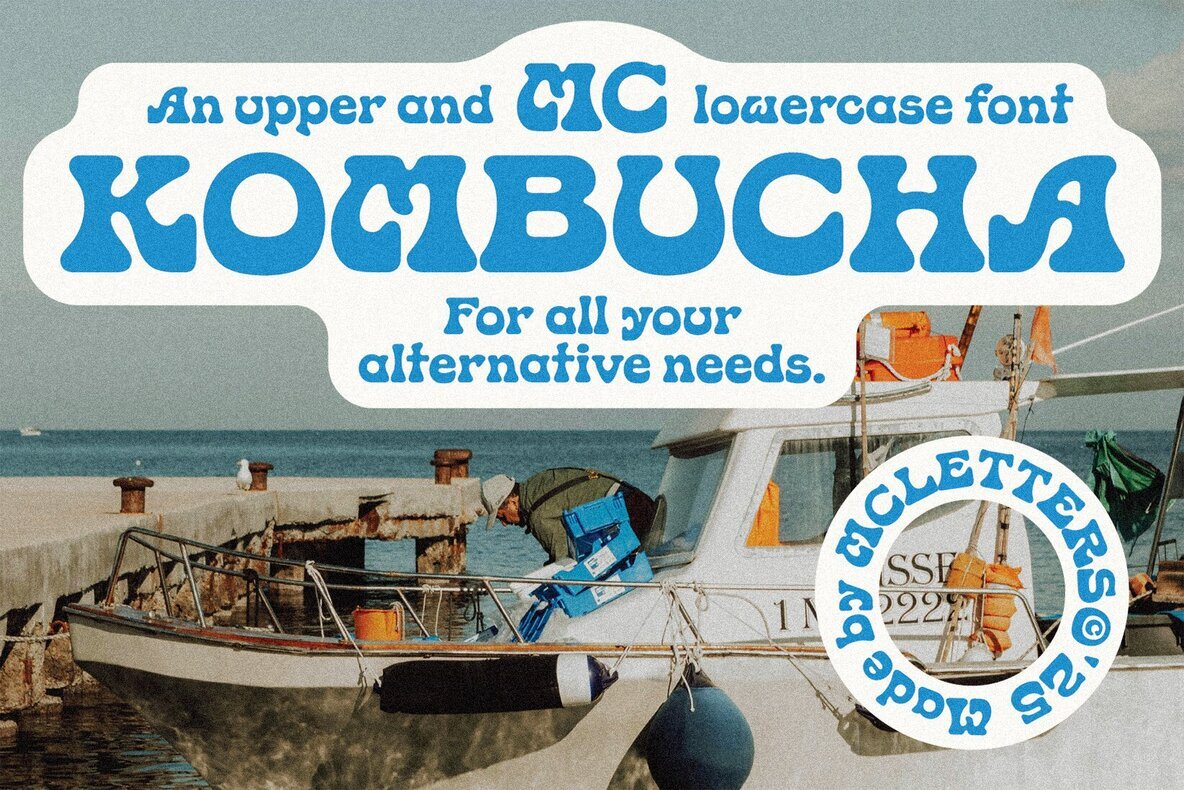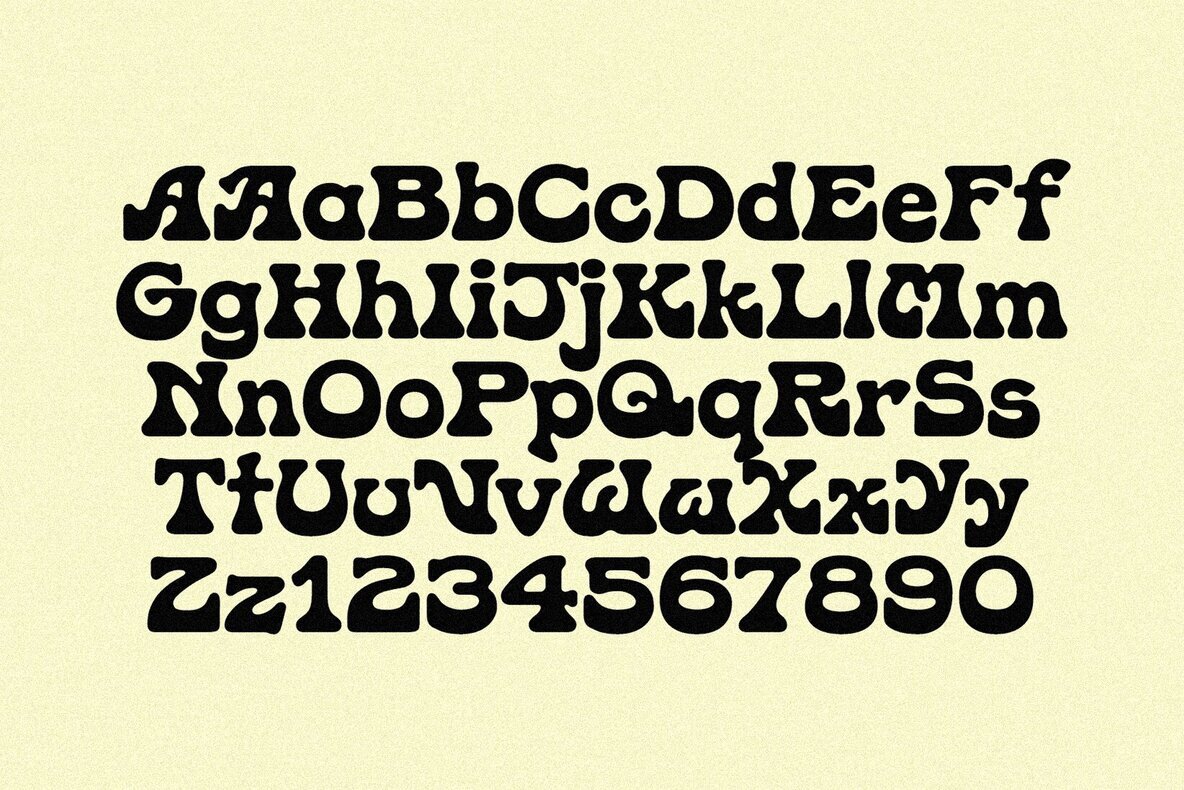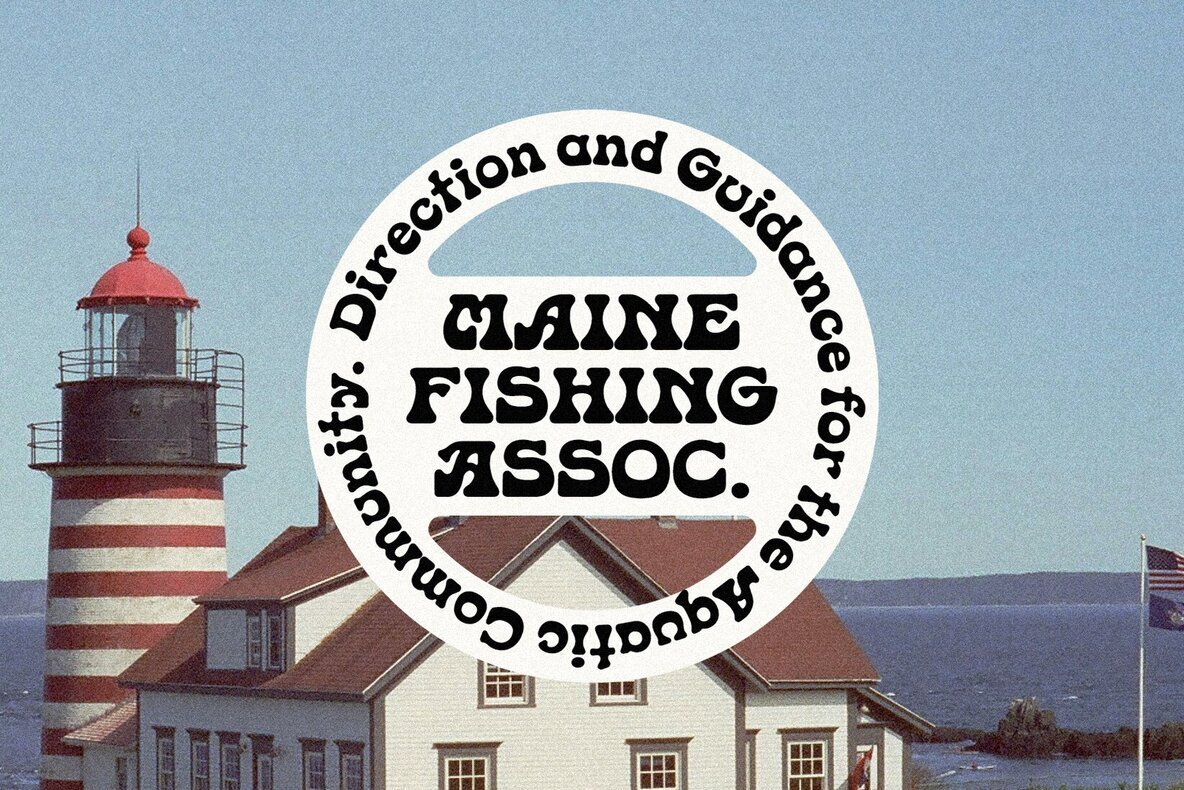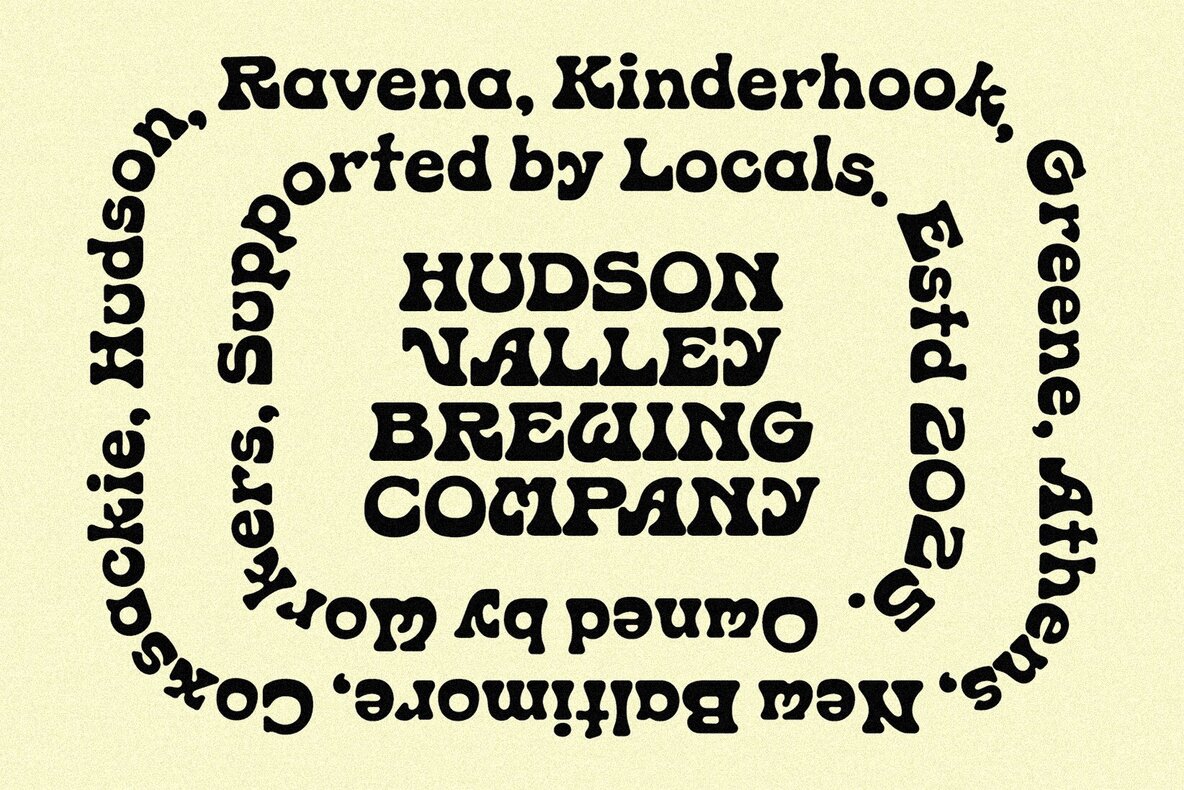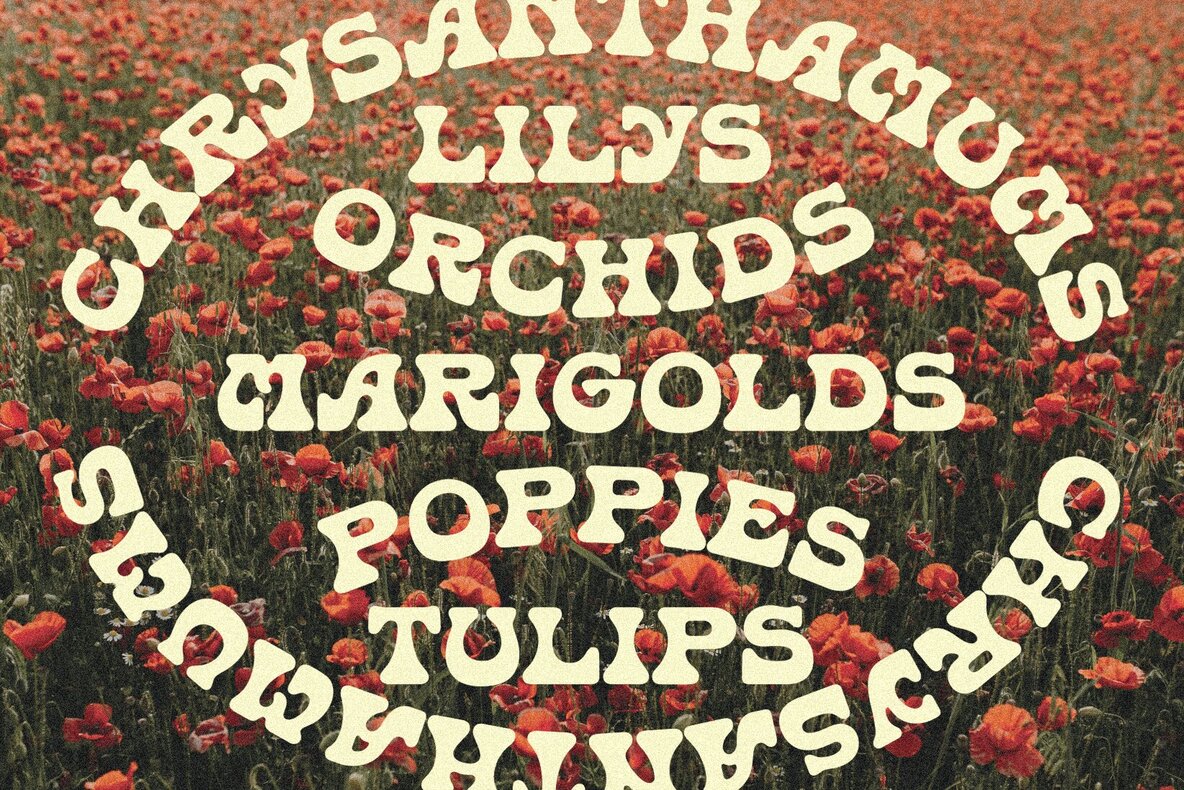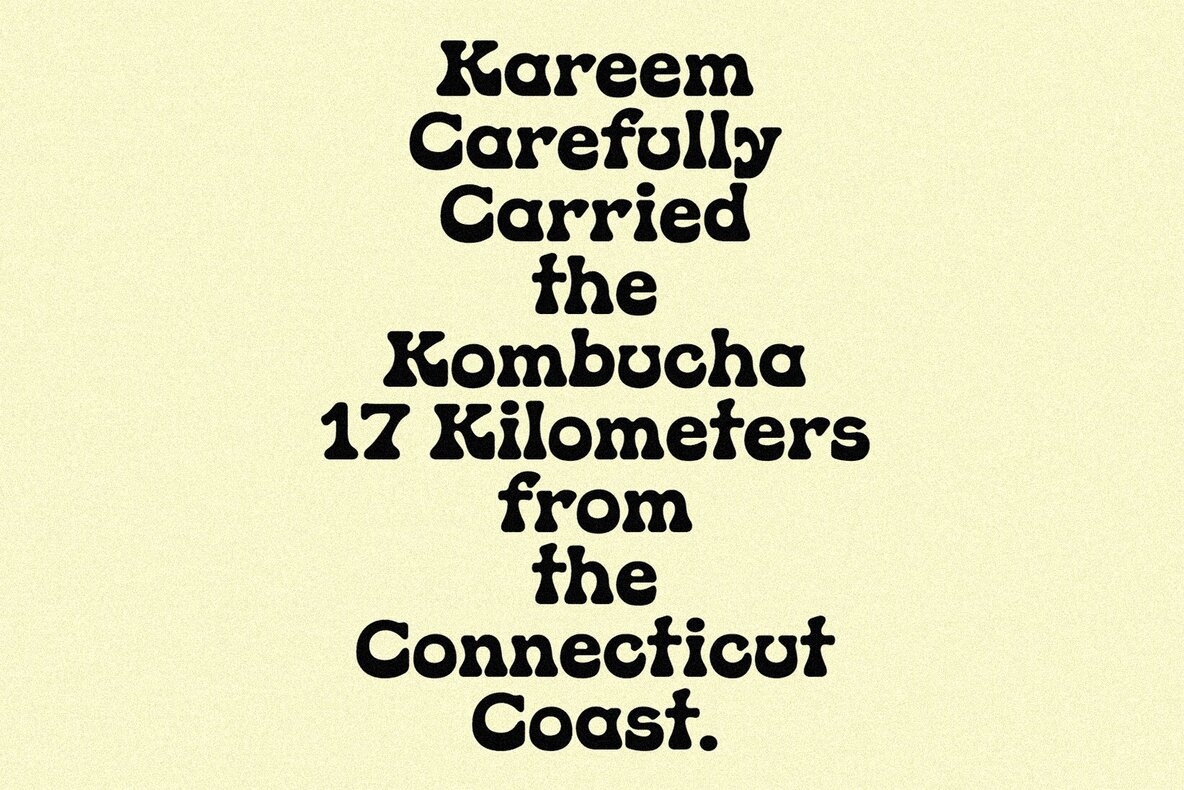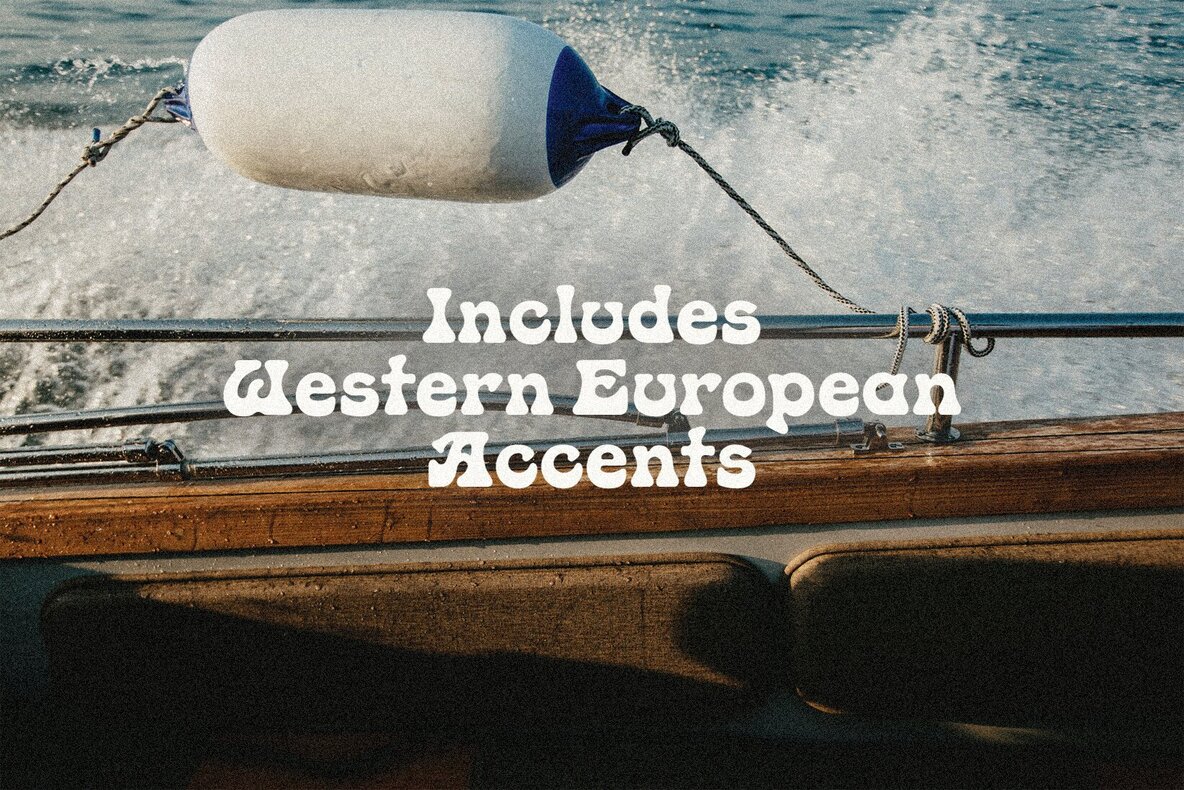
MC Kombucha Font
MC Kombucha
Infuse your design projects with a warm touch of nostalgia using MC Kombucha, an organic and vintage-inspired typeface. Perfect for posters, stickers, labels, and branding applications, this hand-drawn font evokes a sense of comforting familiarity and creative flair.MC Kombucha: Embrace Nostalgia with Organic Retro Fonts